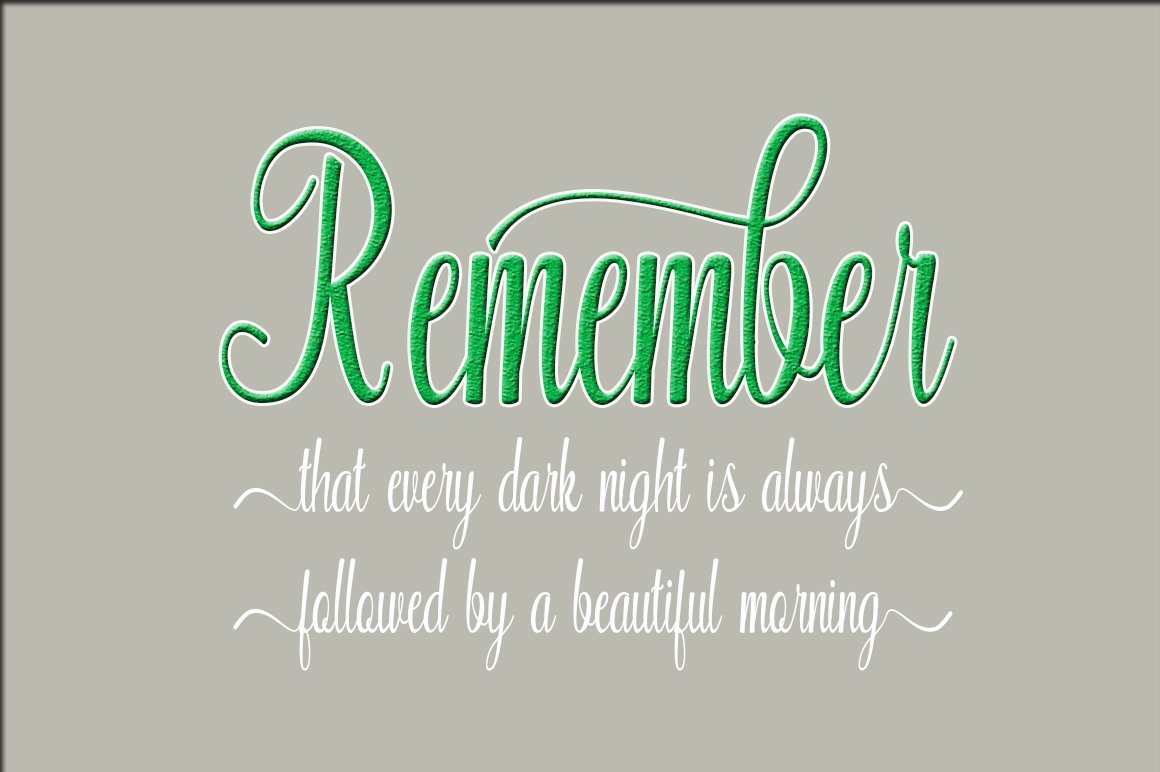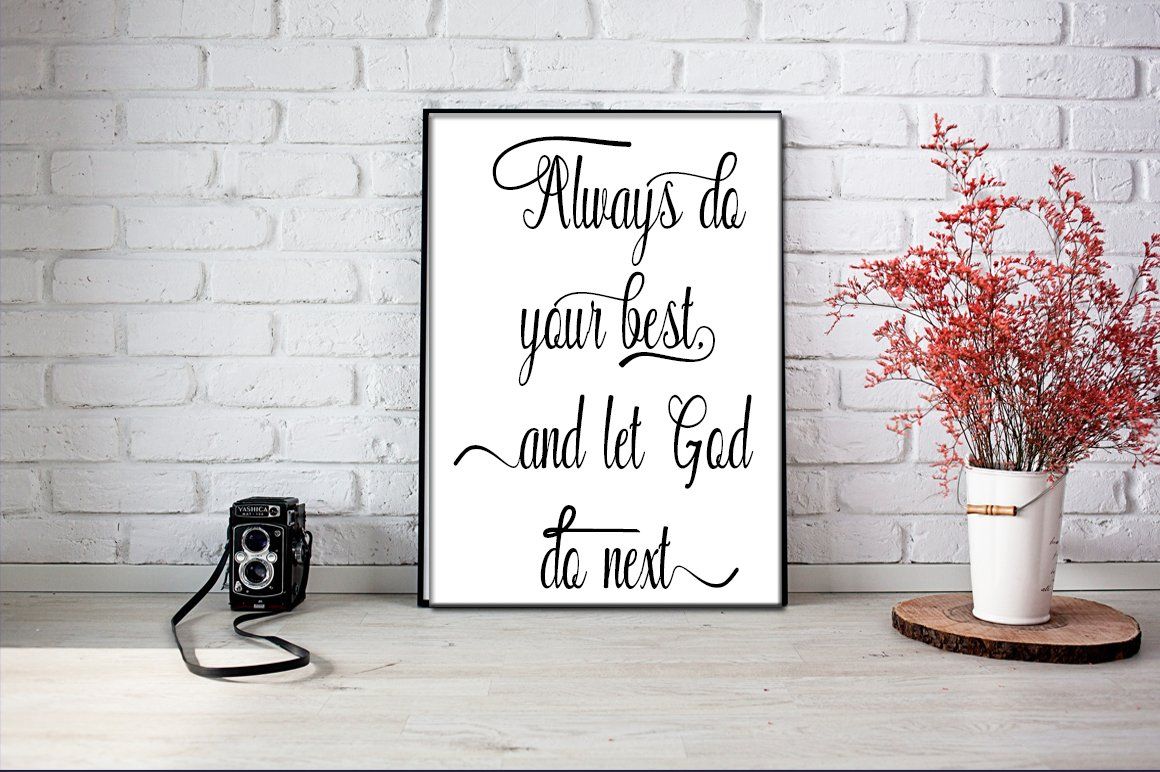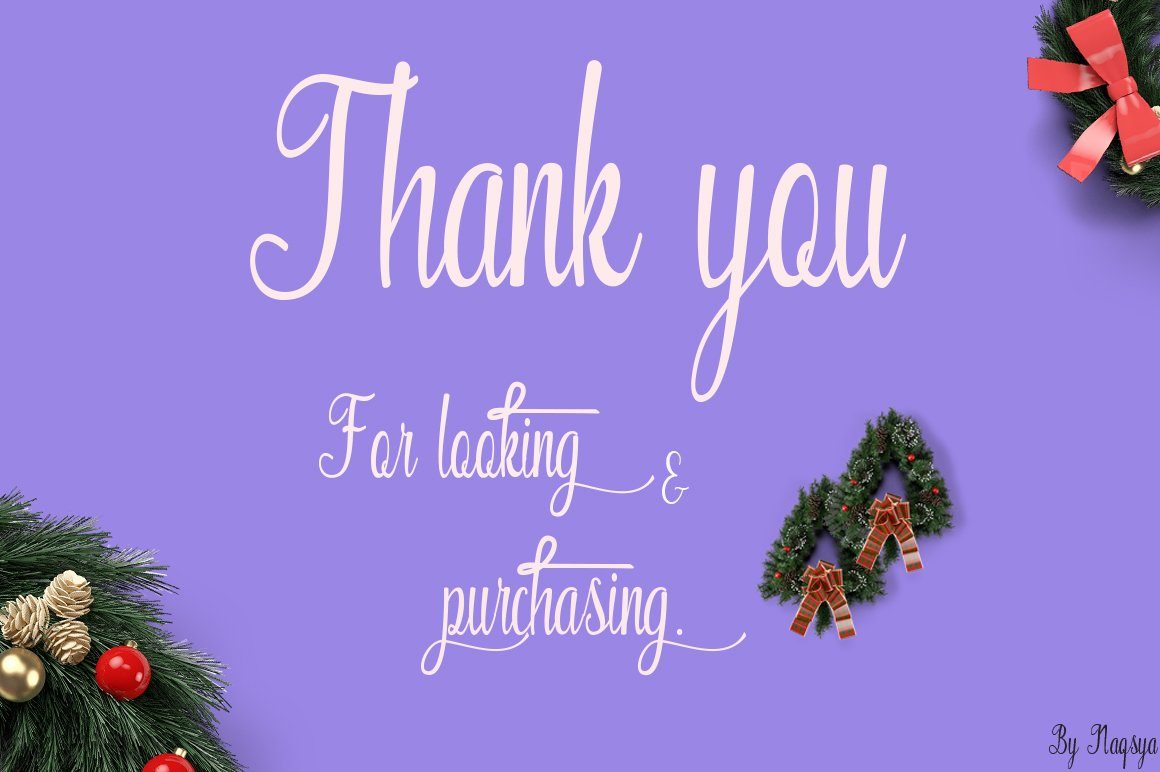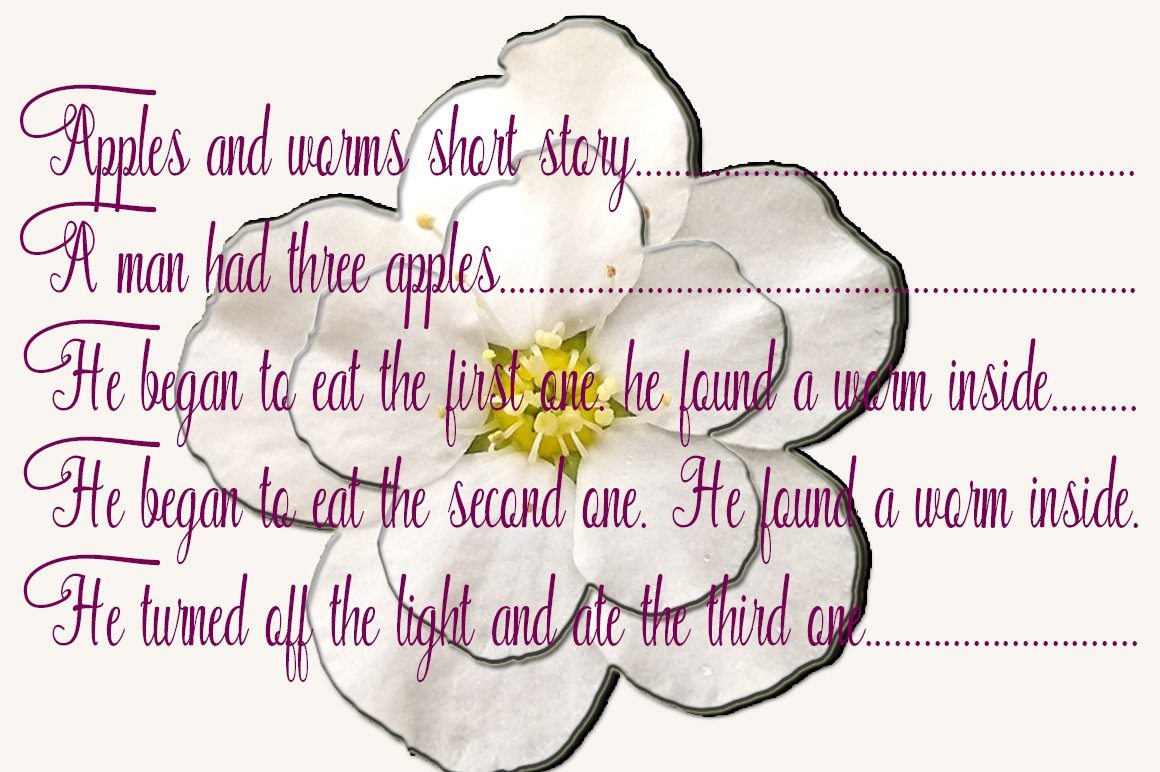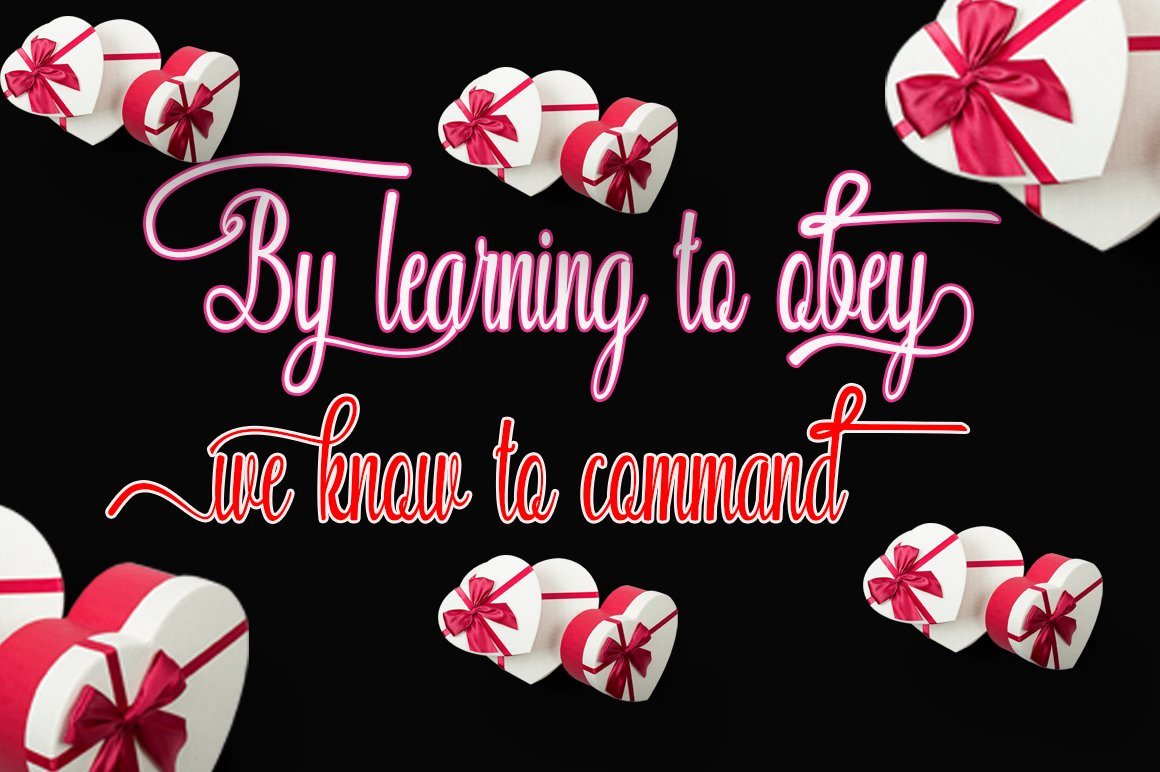
Pyneapple
About Pyneapple
Pyneapple is script that is beautiful and unique, it is a model of modern calligraphy typefaces, in combination with a calligraphy brush writing style.The Features of this fonts is; Contextual Alternates Discretionary ligatures Stylistic Alternates Style font Pyneapple is ; Pyneapple regular. ttf Pyneapple regular. otf Pyneapple italic. ttf Pyneapple italic. otf Can be used for various purposes.such as headings, signature, logos, wedding invitation, t-shirt, letterhead, signage, lable, news, posters, badges etc. To enable the OpenType Stylistic alternates, you need a program that supports OpenType features such as Adobe Illustrator CS, Adobe Indesign & CorelDraw X6-X7. Pyneapple is a brush script that is beautiful and unique, it is a model of modern calligraphy typefaces, in combination with a calligraphy brush writing style.The Features of this fonts is; Contextual Alternates Discretionary ligatures Stylistic Alternates Style font Pyneapple is ; Pyneapple regular. ttf Pyneapple regular. otf Pyneapple italic. ttf Pyneapple italic. otf Can be used for various purposes.such as headings, signature, logos, wedding invitation, t-shirt, letterhead, signage, lable, news, posters, badges etc. To enable the OpenType Stylistic alternates, you need a program that supports OpenType features such as Adobe Illustrator CS, Adobe Indesign & CorelDraw X6-X7.